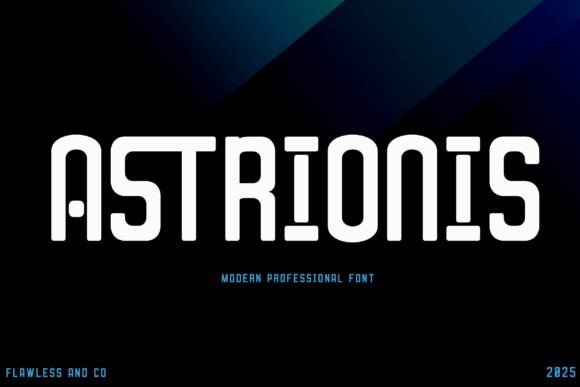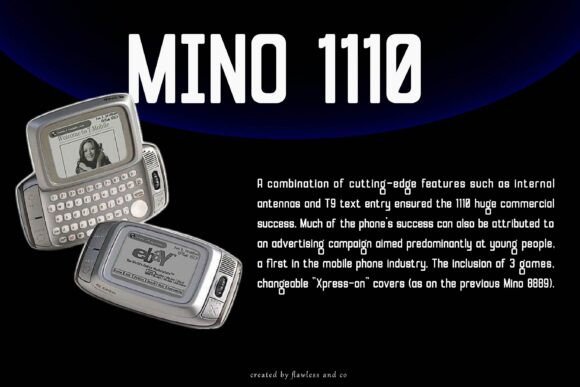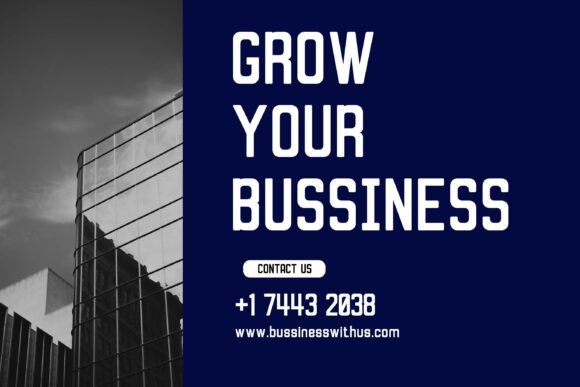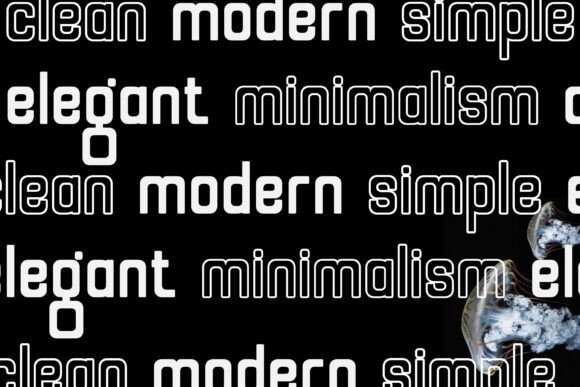
Astrionis Font: Bold Display Typography for Futuristic Logo Design
About the Astrionis Font
Step up your design game with Astrionis Font, a font that exudes confidence and style. Astrionis is a futuristic display font that embodies the essence of sci-fi and space-age aesthetics. With sleek lines, geometric shapes, and a bold digital look, this font is perfect for projects that aim to convey a sophisticated, high-tech, and visionary feel. Suitable for sci-fi movie titles, game interfaces, tech branding, posters, and digital artwork that requires a forward-thinking edge.
Astrionis excels in headlines, posters, and branding applications where a strong, futuristic statement is needed. Its bold geometry makes it unsuitable for body text or UI elements requiring high readability; extended use will strain the eye. Avoid using it for long paragraphs or small sizes.
The font’s inherent boldness pairs well with clean sans-serif fonts like Open Sans or Lato for supporting text, creating a balanced contrast between the headline’s futuristic energy and the body’s legibility. For a more luxurious feel, consider pairing it with a subtle serif like Merriweather, softening Astrionis’s stark lines.
Astrionis projects a bold, confident, and undeniably modern personality. Brands targeting a tech-savvy audience, science fiction themes, or those seeking a cutting-edge image will find it particularly effective.
Astrionis Font Usage Examples
Astrionis Font Example